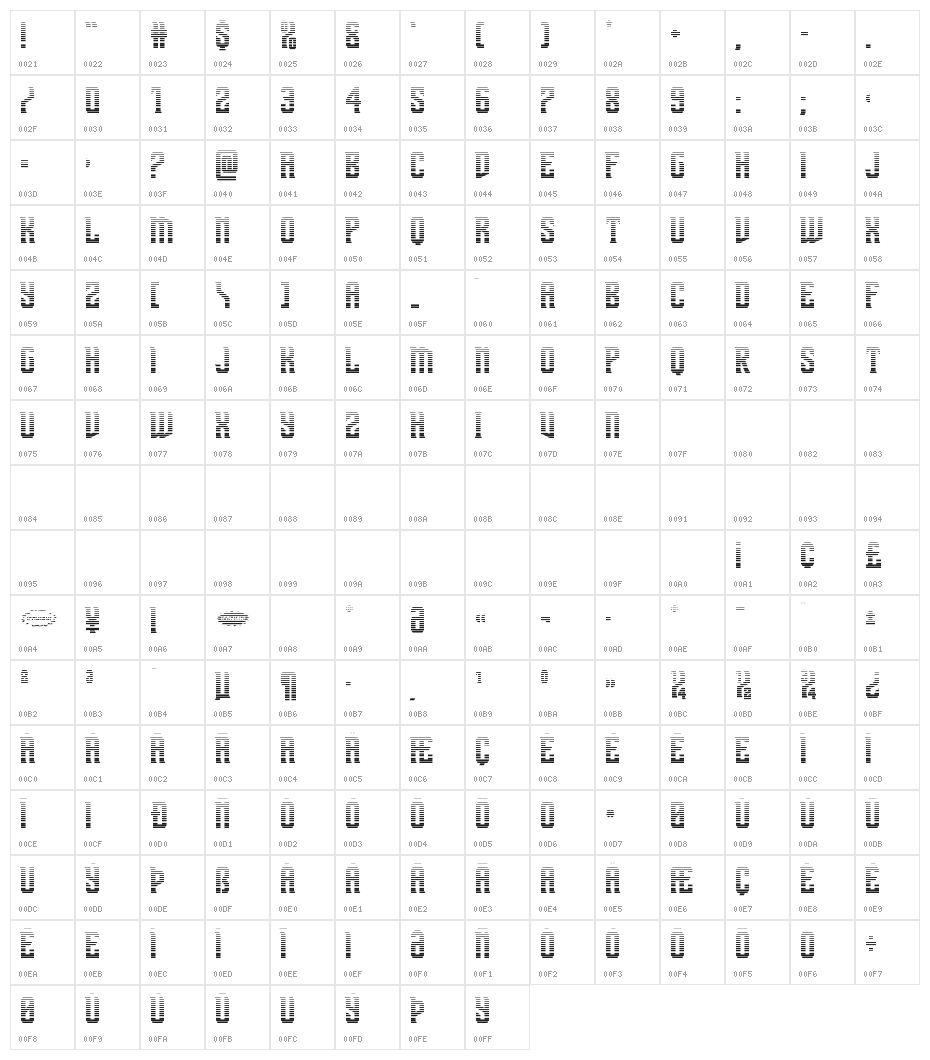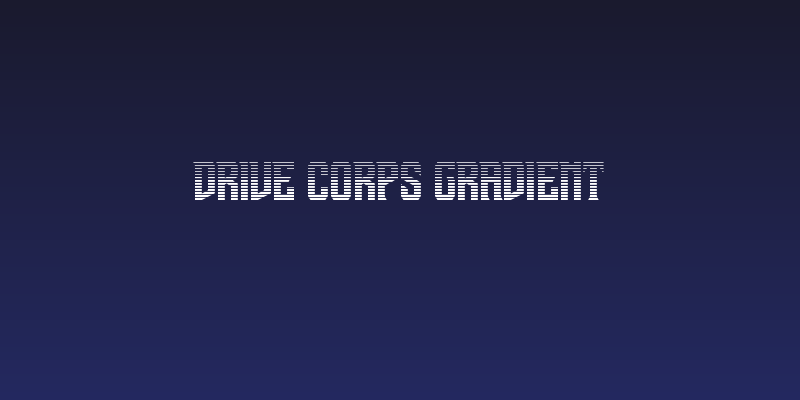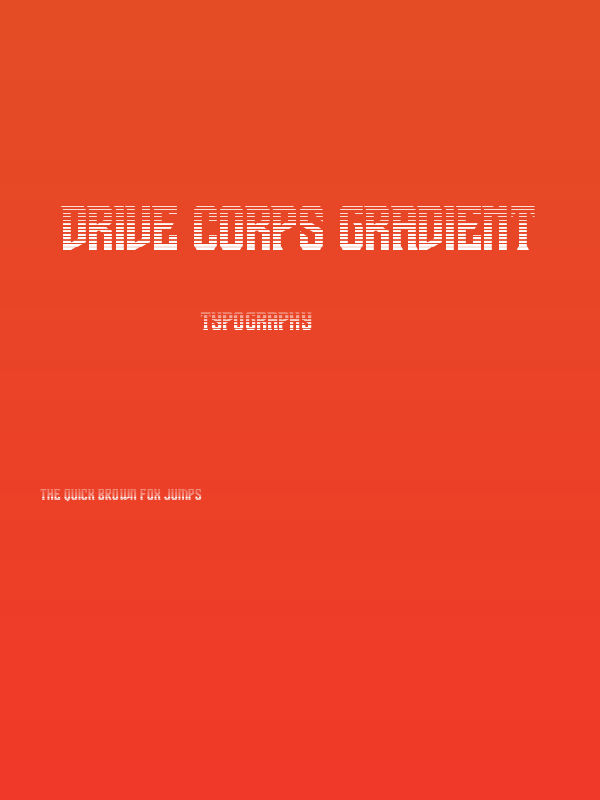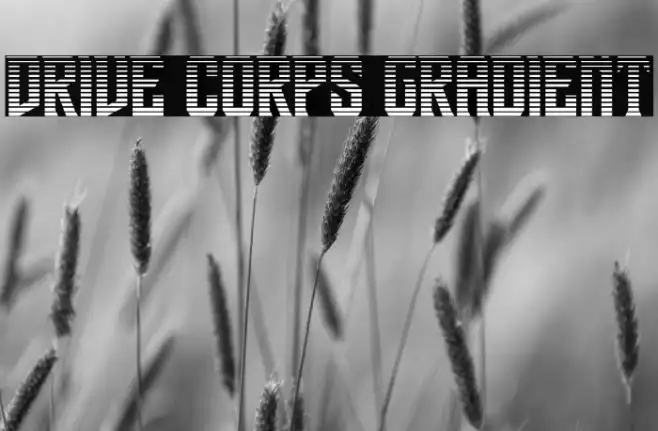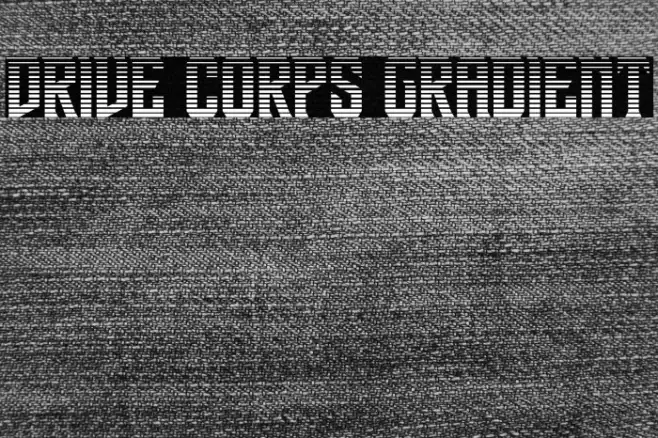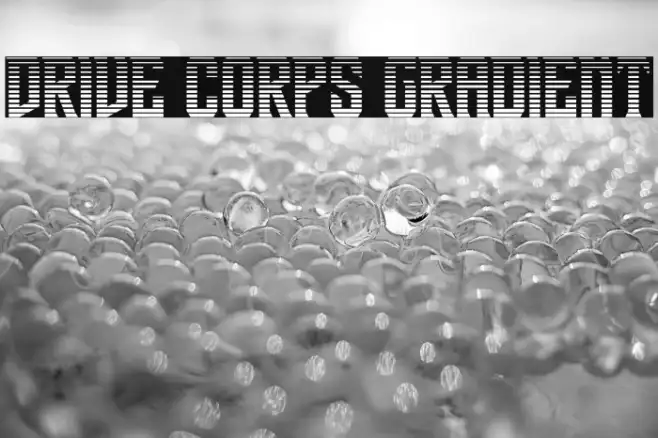
Drive Corps Gradient Font
Drive Corps Gradient Description
This font features a bold, futuristic design with a distinct gradient effect created by horizontal lines. Each character is composed of solid black segments interspersed with white space, giving it a striped appearance. The uppercase and lowercase letters maintain a consistent style, with sharp angles and a geometric structure. The numbers and special characters follow the same pattern, ensuring uniformity across the font. This design is eye-catching and modern, making it suitable for projects that require a strong visual impact.
| Proposed Projects | Ideal for sci-fi themed designs, technology branding, video game titles, and modern posters. |